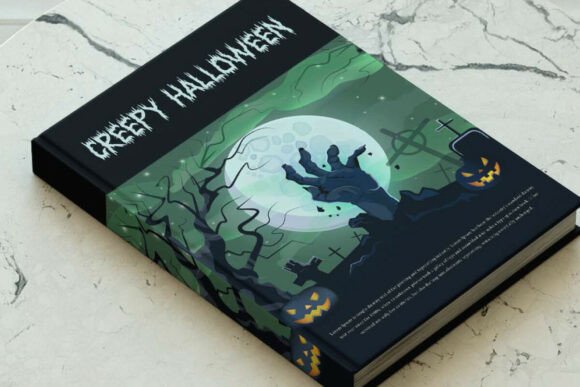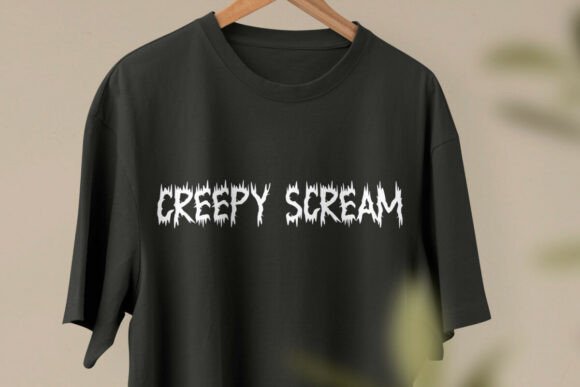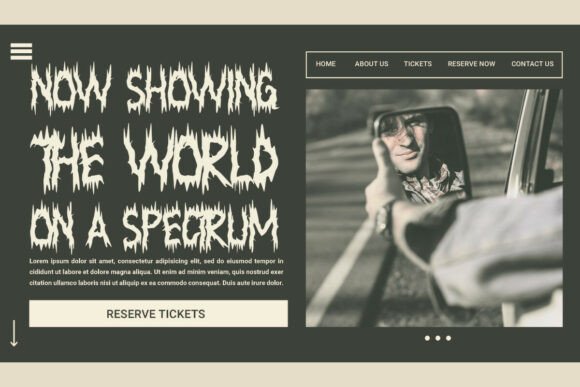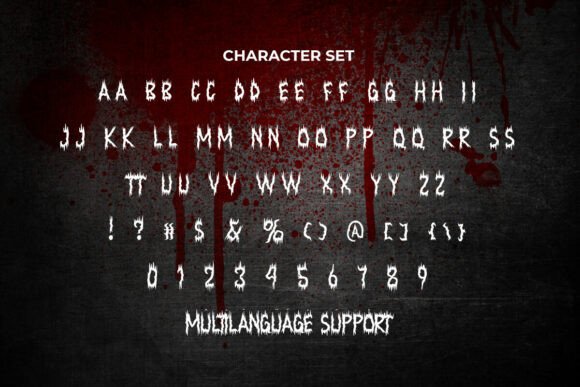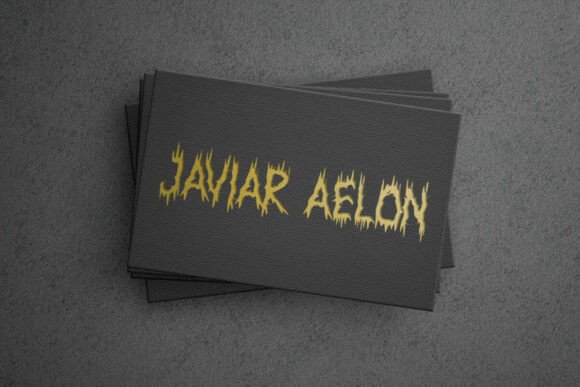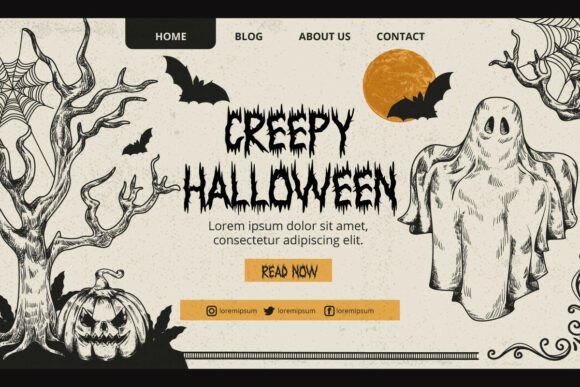
Introduction to Creepy Scream Font
Unleash the raw, aggressive energy of the underground with Creepy Scream font, a typeface designed for maximum intensity.
The Creepy Scream typeface is inspired by the extreme aesthetics of black metal and dark fantasy, featuring sharp, dripping serifs and a chaotic, thorny structure This is the definitive Creepy Scream font for band logos, extreme sports branding, and edgy streetwear collections.
Key Features of Creepy Scream Font
Why Choose Creepy Scream Font?
Creepy Scream Font offers exceptional quality and versatility, making it a valuable addition to your design toolkit. Whether you’re creating for personal projects or commercial use, Creepy Scream Font delivers professional results.